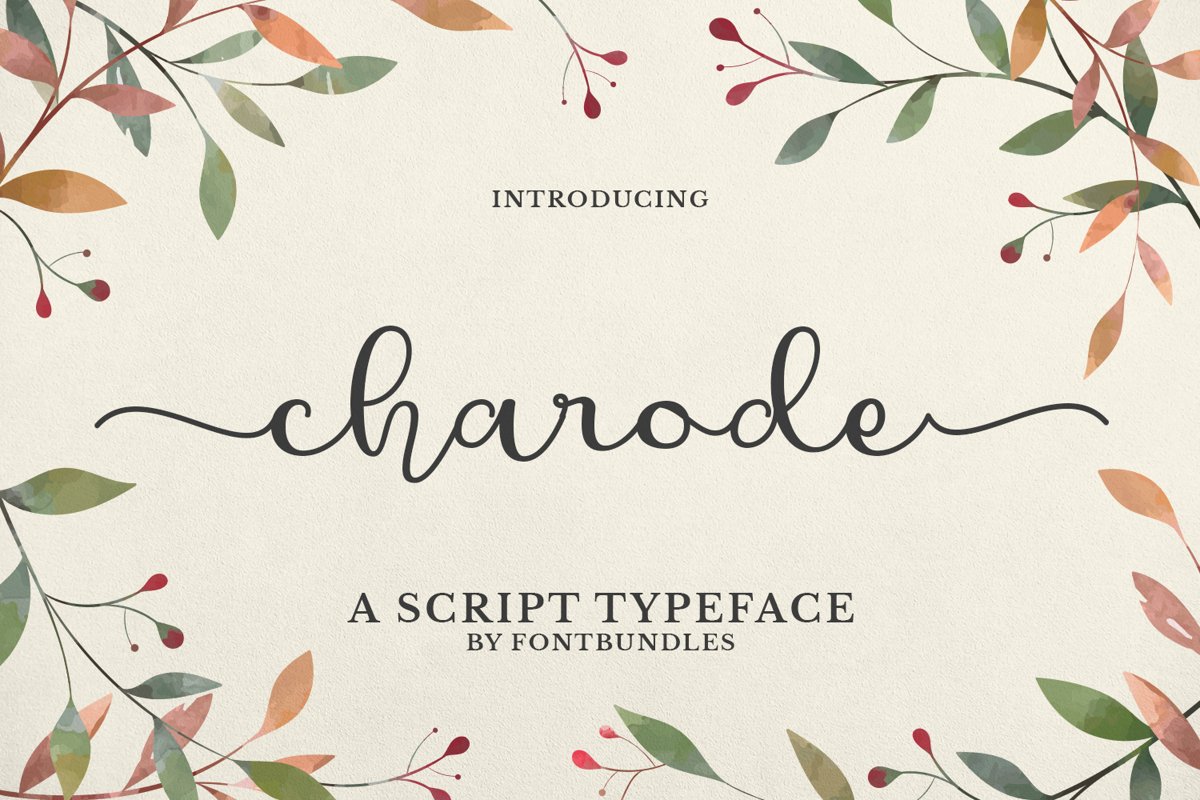
Charode
Charode is a script typeface. Perfect for display, quotes, name card, business card, logo, logotype, packaging, merchandise, header, tittle, wedding needs, and many more.